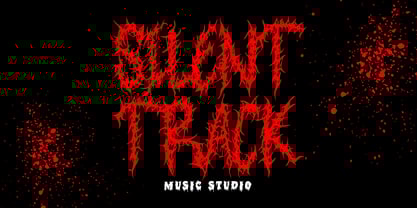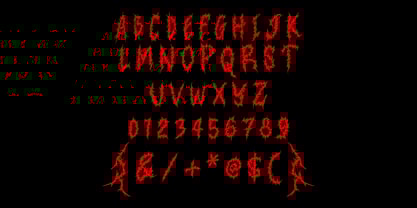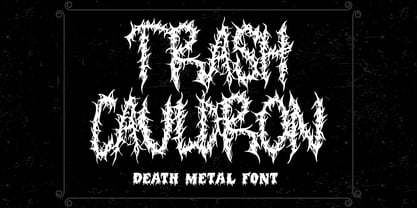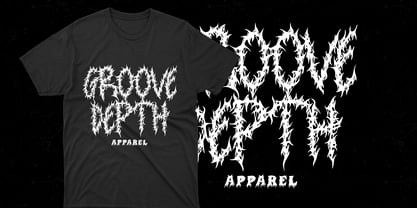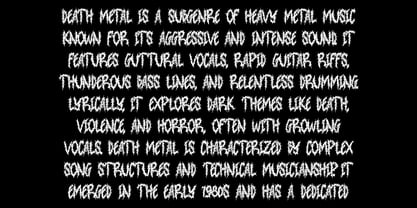
Trash Cauldron
by Prioritype
The Trash Cauldron Font Family was designed by Prio Nurokhim Aji and published by Prioritype. Trash Cauldron contains 1 styles.
Introducing Trash Cauldron – Death Metal Font: a design force for those seeking intensity and mystery. Crafted with sharp, contoured letterforms, this font is perfect for merchandise, logos, posters, and beyond. Ignite your creativity with the darkness of death metal, leaving an impression that cannot be ignored. Choose Trash Cauldron – Death Metal Font for unmatched impact.